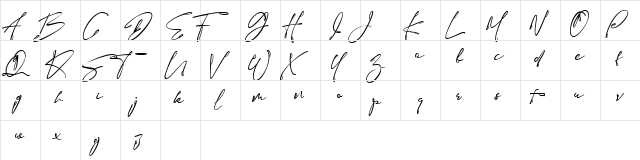
Right Mellody Regular
| Designer | Bright Rhythm Studio 2020 |
Design Context for Right Mellody Typeface
Right Mellody is a composed and adaptable typeface that performs quietly and consistently across a wide range of design contexts.
Pro Tip: Pair Right Mellody with a font of contrasting weight or personality to build a more expressive typographic hierarchy.